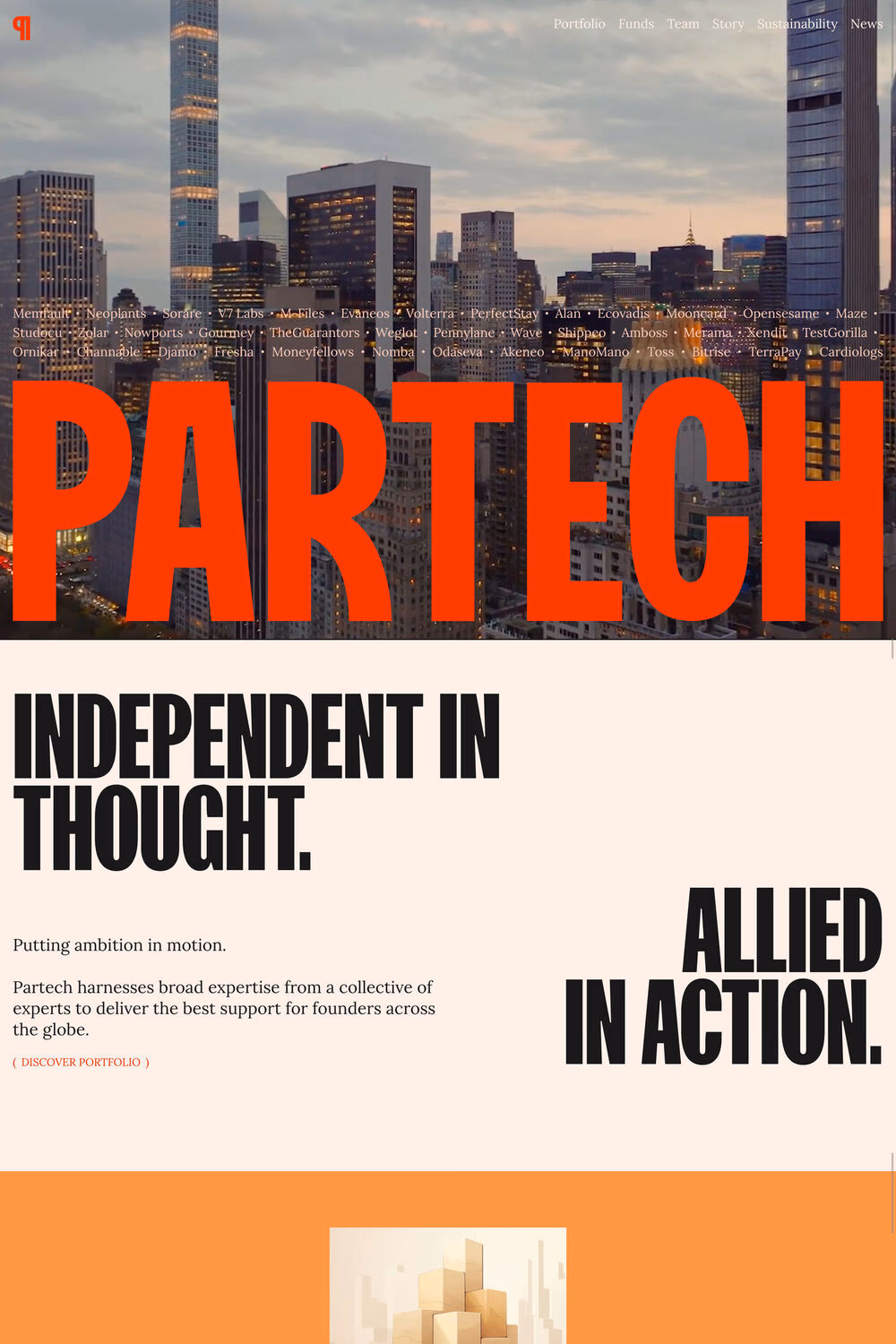
FK Screamer is a display typeface from Florian Karsten Typefaces.
FK Screamer is a condensed font family, intended primarily for display use. Its tight spacing and compact diacritical marks are resulting in a very robust and block-like appearance of a set text, making it an ideal choice for headlines and wordmarks. FK Screamer supports Latin Extended-A character set (i.e. Western European, Central European and Southeastern European languages) as well as Vietnamese language (since v2.0.0) and several OpenType features.